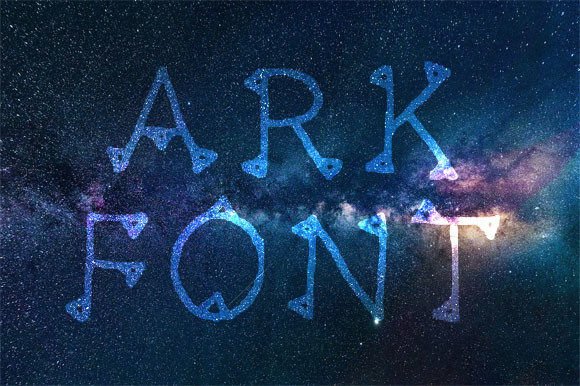
Introduction to Ark Font
Ark is a whimsical and unique decorative font featuring characters that end in little triangles.
Geometrical and fun, this typeface is sure to impress .
Key Features of Ark Font
Why Choose Ark Font?